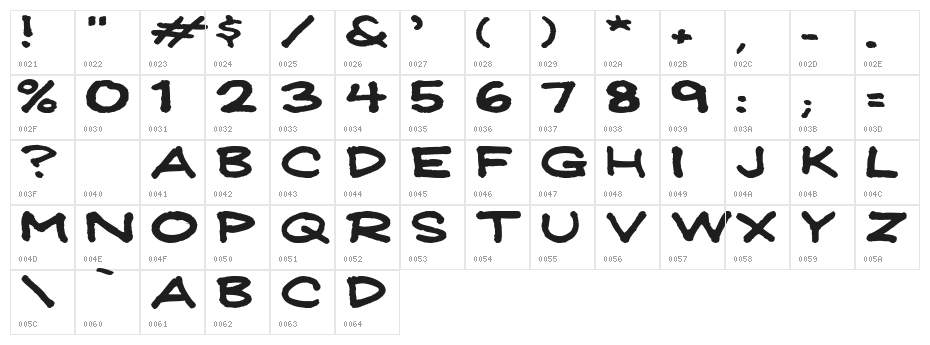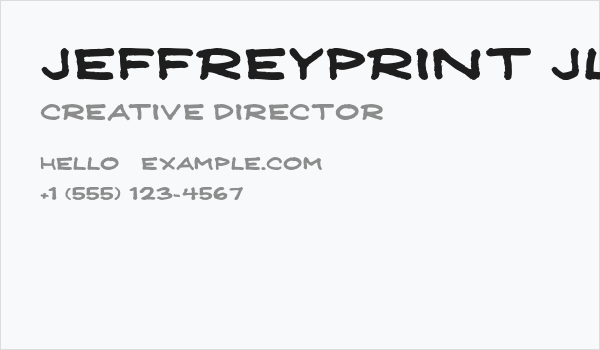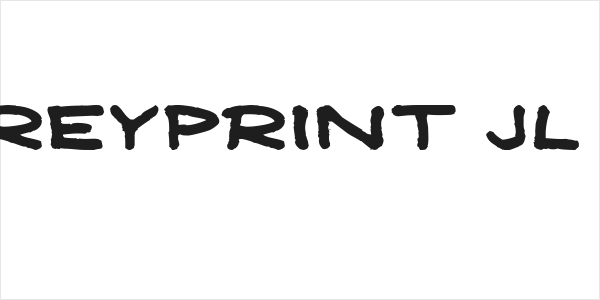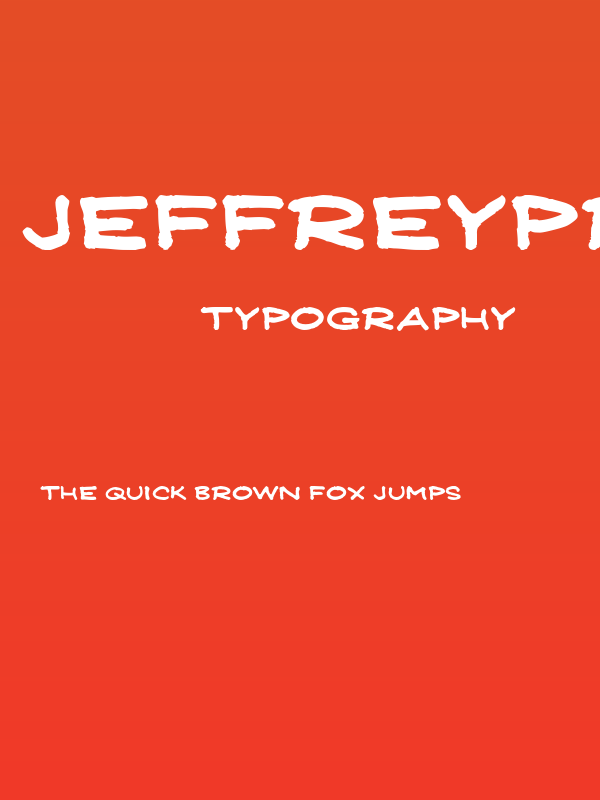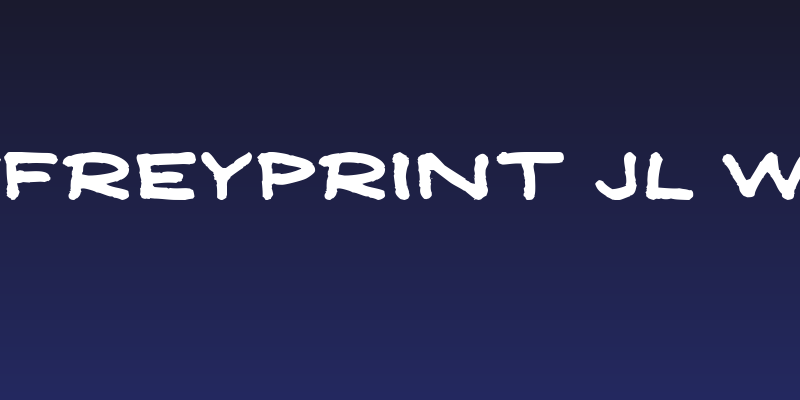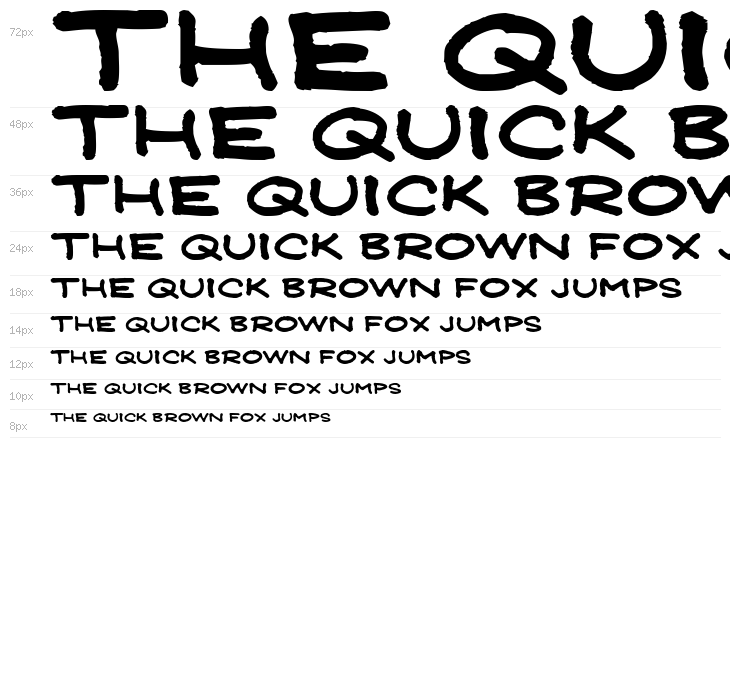
JeffreyPrint JL Wide Font
JeffreyPrint JL Wide Description
This font features a bold and expressive style, characterized by its thick, uneven strokes that give it a hand-drawn appearance. The letters are wide and slightly irregular, adding a playful and informal touch. Each character maintains a consistent weight, contributing to a cohesive look across the alphabet. The numbers and special characters follow the same design principles, ensuring uniformity throughout. This font's unique style makes it stand out, offering a distinct personality that can enhance creative projects.
| Proposed Projects | Ideal for creative projects such as posters, children's books, and playful branding materials. |